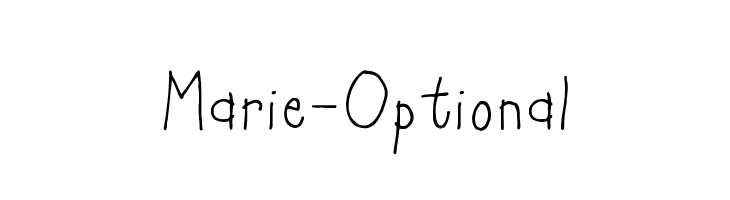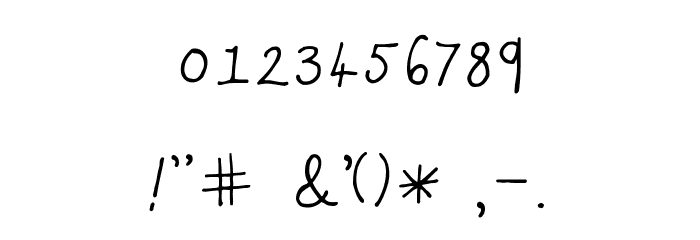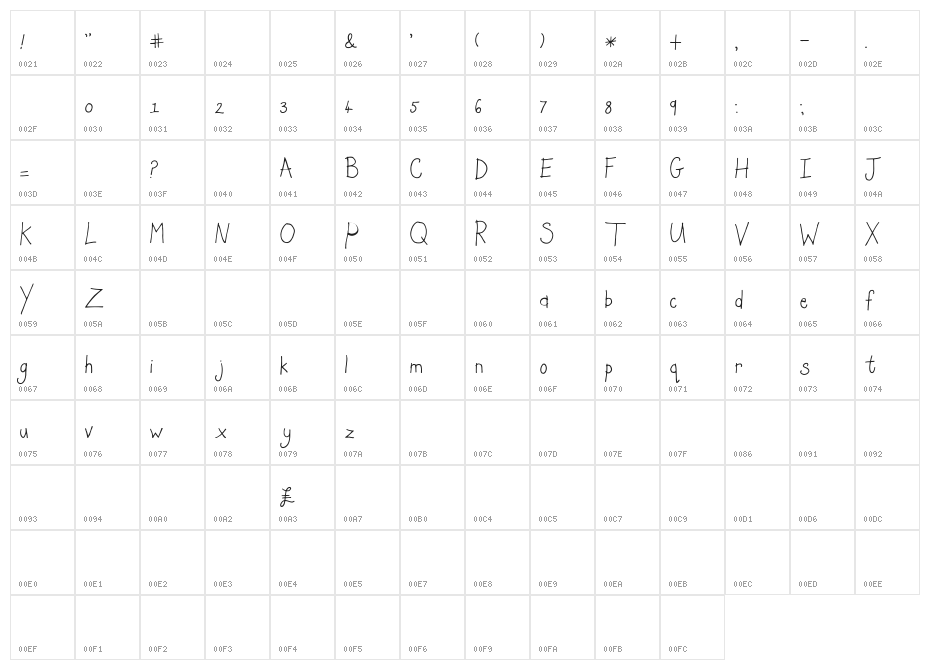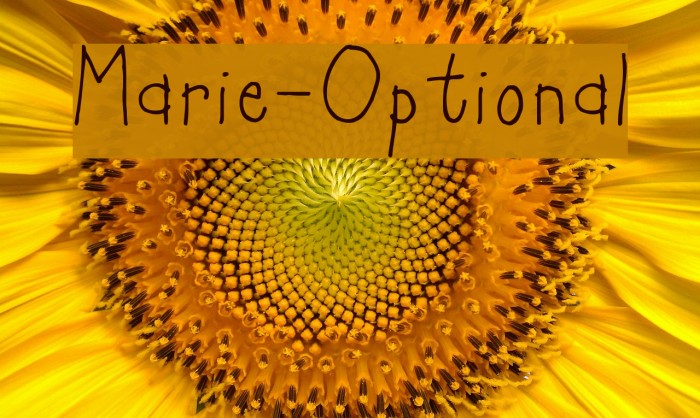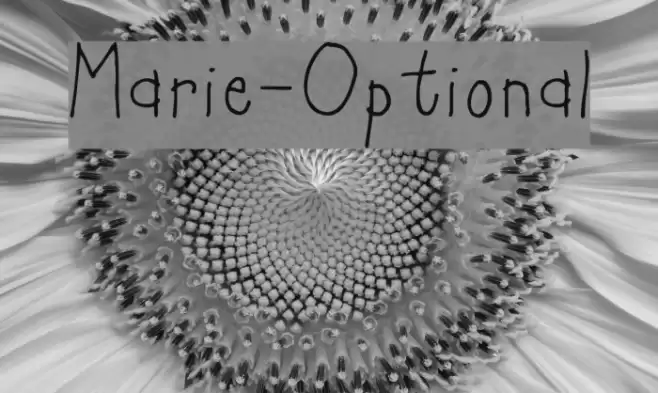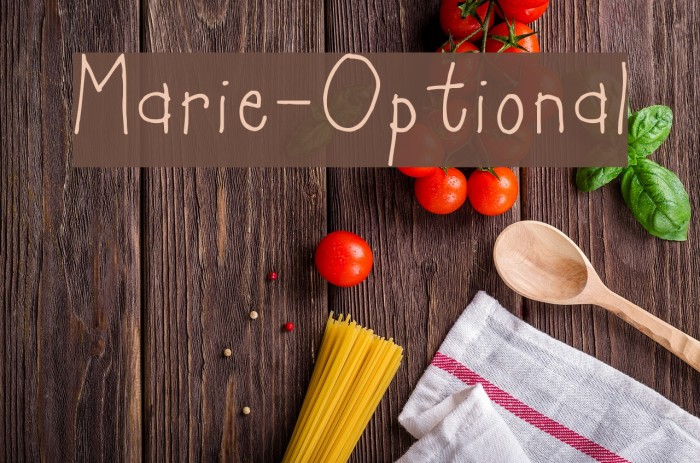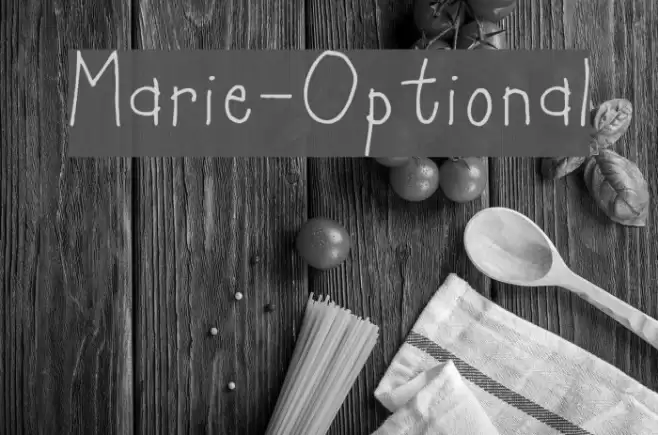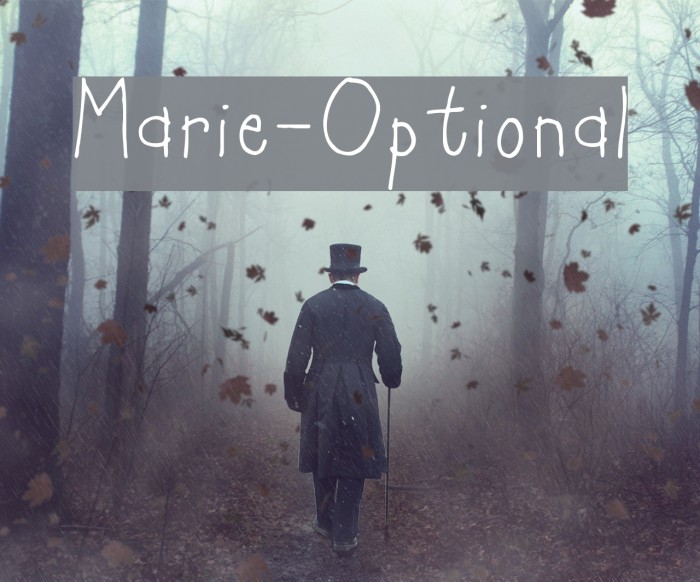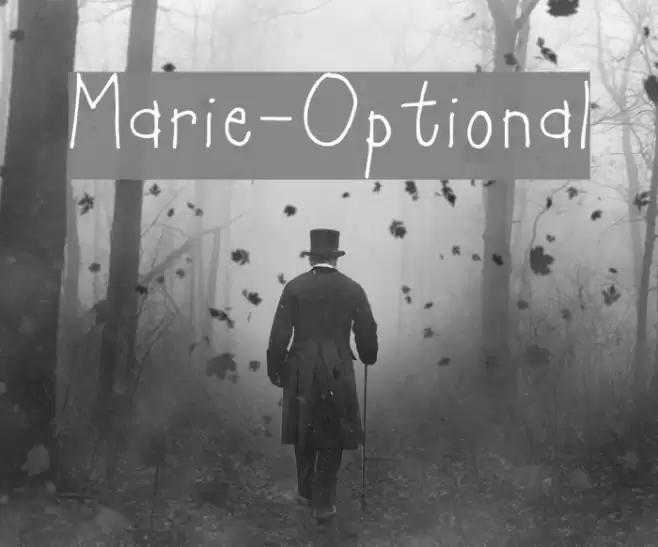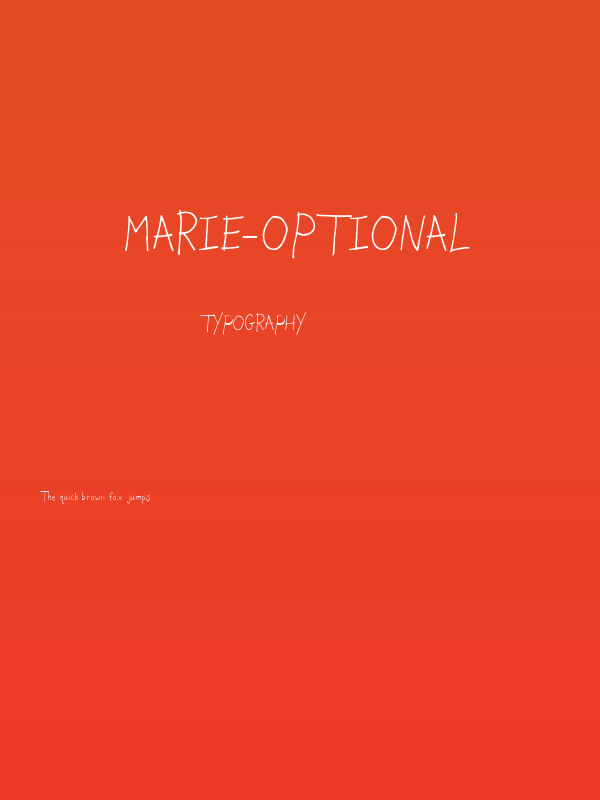
This font features a playful and informal handwritten style, characterized by its irregular strokes and slightly uneven baseline, giving it a whimsical and casual appearance. The uppercase letters are tall and narrow, while the lowercase letters maintain a consistent height, contributing to a cohesive yet dynamic look. The numerals are straightforward, matching the overall playful theme. Special characters are included, maintaining the same quirky style. This font is ideal for projects that require a personal touch or a friendly, approachable aesthetic.
| Use Case | Headlines, Informal text, Personal projects |
| Proposed Projects | Ideal for greeting cards, children's books, casual invitations, and personal blogs. |